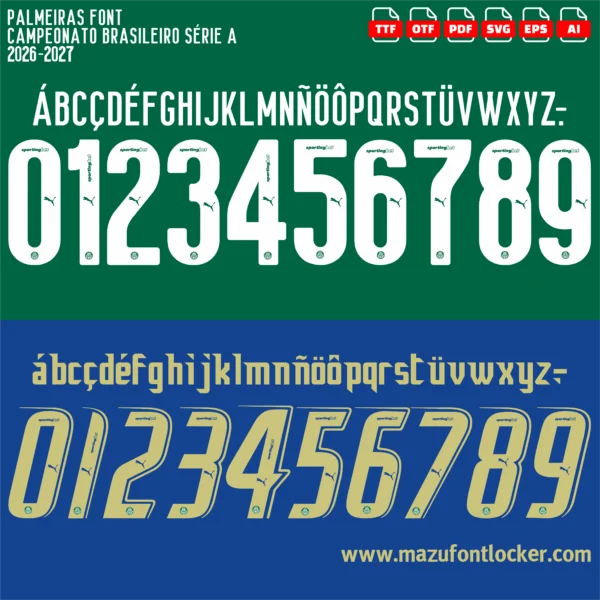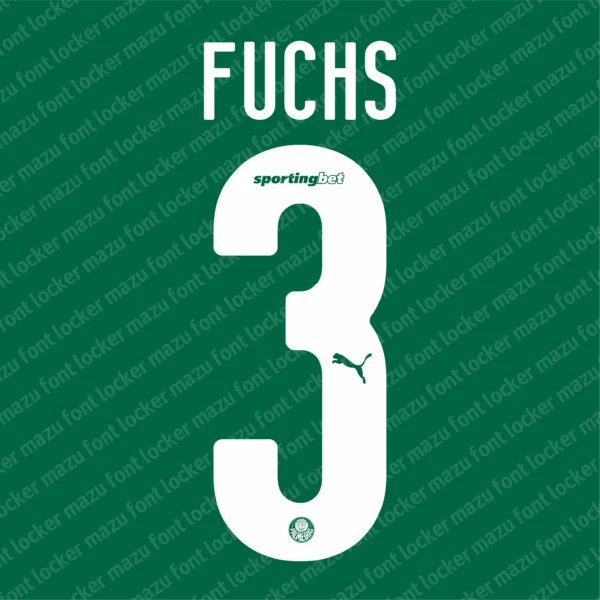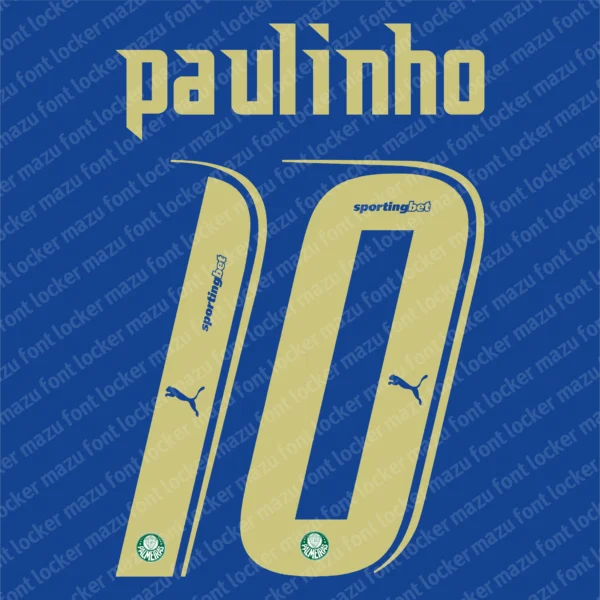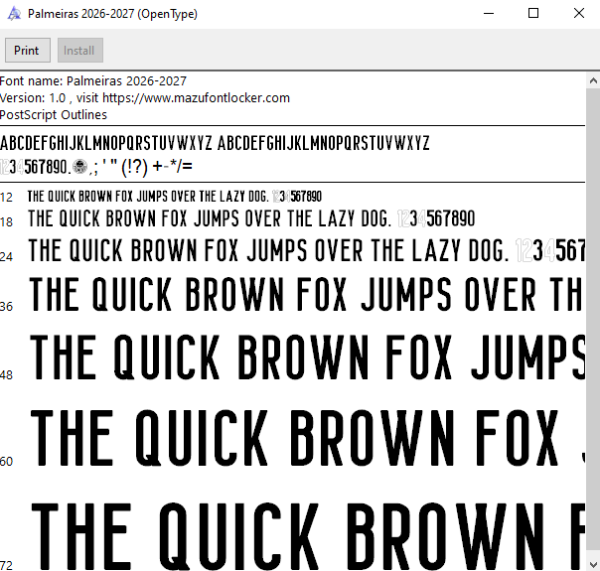
Palmeiras 2026-2027 Font Vector – Stunning Verdão Masterpiece
This font captures the bold, precision-forged lettering inspired by Palmeiras’ iconic green-and-white identity, proud São Paulo heritage, legendary Verdão tradition, and fearless Brazilian football spirit — delivering premium authenticity and explosive match-day energy for professional jersey mockups, football graphics, sports branding, fan designs, and high-end creative projects.
Palmeiras 2026-2027 Font Vector – Stunning Verdão Typeface
The Palmeiras 2026-2027 Font Vector is a premium typeface designed to recreate the distinctive football lettering associated with Sociedade Esportiva Palmeiras during the 2026-2027 season. This high-quality vector font kit captures a bold, clean, modern, and instantly recognizable typography style inspired by the club’s iconic green and white identity.
Designed for professional designers, football enthusiasts, jersey collectors, and passionate Palmeiras supporters, the Palmeiras 2026-2027 Font Vector delivers an authentic football aesthetic for creating realistic jersey mockups, football merchandise, social media graphics, match posters, squad designs, banners, and custom fan artwork. Every character has been carefully recreated to reflect the powerful and precise visual style of one of Brazil’s most historic football clubs.
Why Choose Palmeiras 2026-2027 Font Vector
This font stands out thanks to its precise vector construction and authentic club-inspired styling. Every letter and numeral has been meticulously recreated to deliver a distinctive football lettering aesthetic inspired by Palmeiras’ 2026-2027 campaign and its celebrated Brazilian football heritage.
Whether you’re producing professional football kit templates, custom jersey concepts, South American football graphics, or eye-catching football content, the Palmeiras 2026-2027 Font Vector delivers a genuine match-ready appearance inspired by the identity of Verdão.
The lettering featured in the Palmeiras 2026-2027 Font Vector combines clean geometric lines with bold modern proportions. The result is a premium and highly readable typeface that reflects Palmeiras’ proud football heritage, iconic green and white colors, São Paulo identity, historic achievements, and passionate global fanbase.
- Complete uppercase A–Z alphabet and numbers 0–9 in authentic Palmeiras 2026-2027 inspired style
- Special Palmeiras badge glyph – Press the “:” (Colon) key to insert the club crest